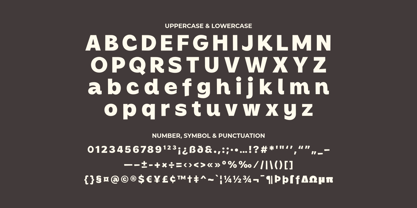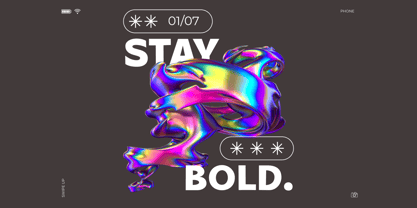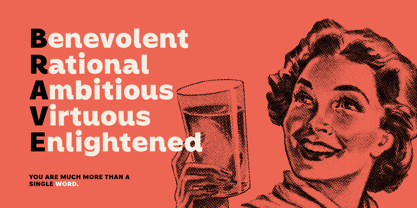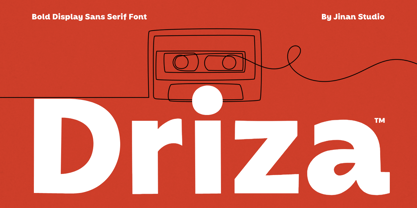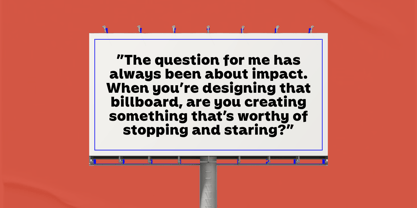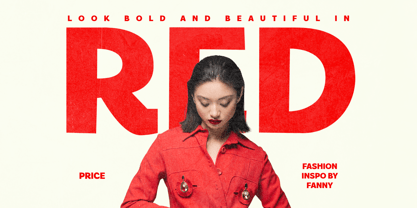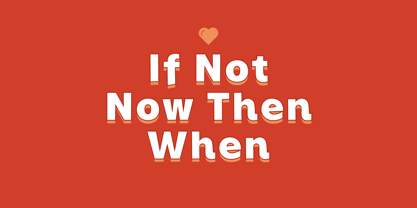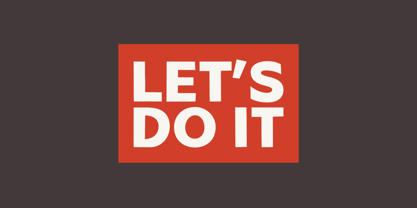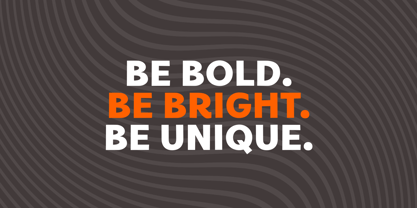
Driza
by Jinan Studio
The Driza Font Family was designed by Andi Syahdang, Ainun Jinan and published by Jinan Studio. Driza contains 1 styles. More about this family
Driza is a bold display sans serif font designed to create strong and modern visual impact. Featuring thick strokes, clean shapes, and subtle rounded details, this font is perfect for branding, logos, headlines, posters, packaging, and social media graphics. Its versatile and contemporary style makes Driza suitable for both professional and playful designs. Whether you're working on brand identity, advertising, or digital content, Driza delivers clarity, confidence, and eye-catching appeal. Features A set of uppercase and lowercase glyphs Number, symbol, and punctuation Multilingual Support
Designers: Andi Syahdang, Ainun Jinan
Foundry: Jinan Studio